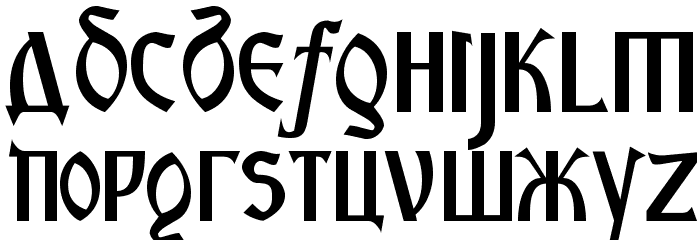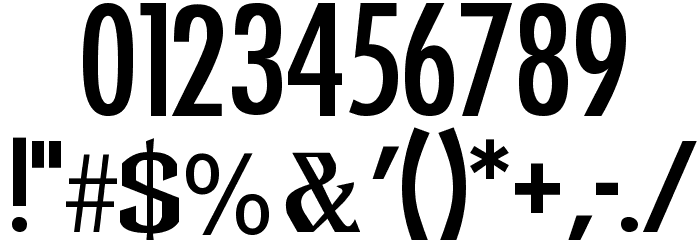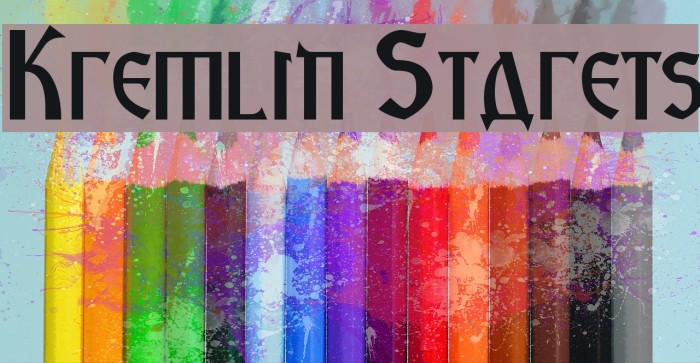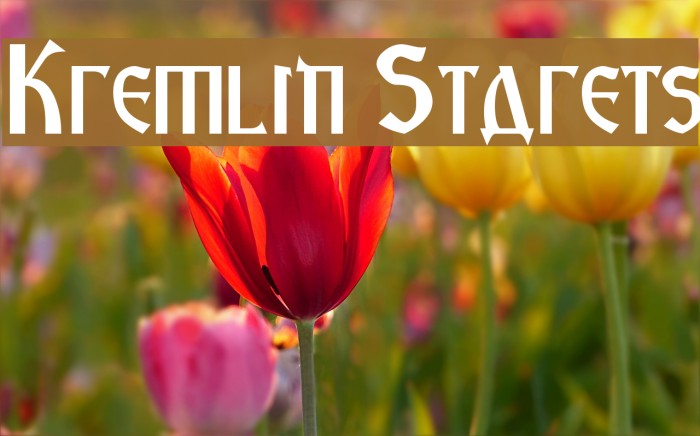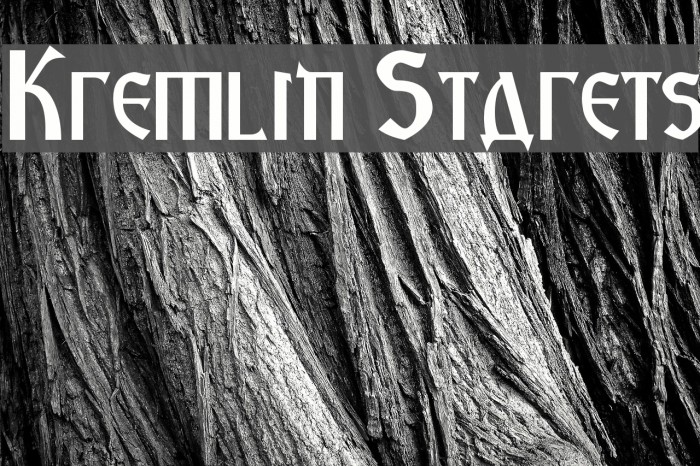
Kremlin Starets Font
This font features a bold and striking design with a strong presence. The characters exhibit a unique blend of traditional and modern elements, characterized by sharp angles and distinct serifs. The uppercase letters are particularly prominent, with a sense of authority and elegance. The lowercase letters maintain a consistent style, offering a harmonious flow. Numbers are clear and easily readable, while special characters are designed to match the overall aesthetic. This font is ideal for making a statement, with its high contrast and bold strokes.
A bold, high-contrast font with sharp angles and distinct serifs.
- Font: Kremlin Starets
- Proposed Projects: Ideal for headlines, posters, branding, and any project requiring a strong visual impact.
- Category: Serif